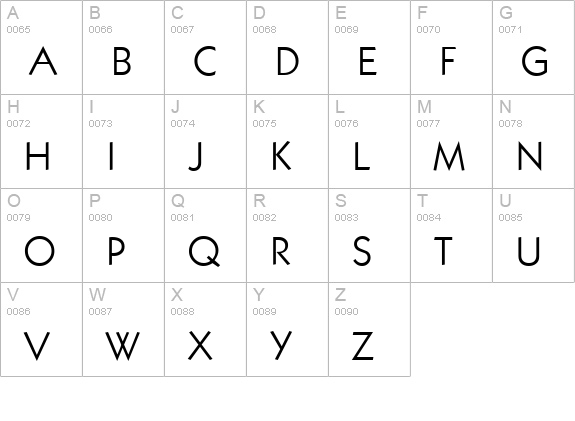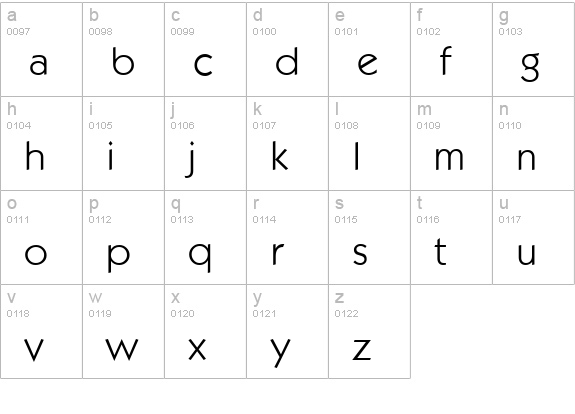
K792-Geometrical-Regular Font Details
K792-Geometrical-Regular is the standard, neutral variant in the K792 typeface family \xE2\x80\x94 well suited to general body text, paragraphs, and standard typographic work.
K792-Geometrical-Regular font is a modern and stylish typeface that combines geometric shapes with clean lines to create a sleek and sophisticated look. Its precise and balanced design makes it perfect for a wide range of projects, from branding to editorial design. The font's sharp angles and precise curves give it a contemporary feel while maintaining a sense of elegance and professionalism. This versatile font is ideal for both headlines and body text, making it a great choice for any design project. Whether you're creating a logo, poster, website, or magazine layout, K792-Geometrical-Regular font will add a touch of sophistication and style to your work. Best of all, K792-Geometrical-Regular font is available for free download at FontsMarket.com, making it accessible to designers of all levels. Don't miss out on this opportunity to enhance your projects with this beautiful and versatile typeface!